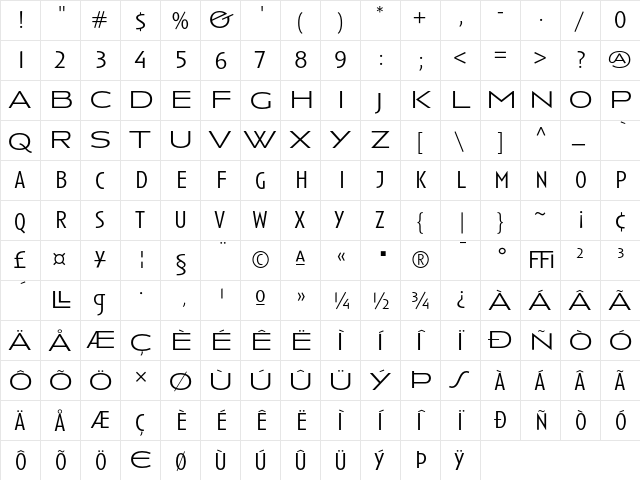
Anisette Light
Design Context for Anisette Typeface
Anisette is a composed and adaptable typeface that performs quietly and consistently across a wide range of design contexts. The delicate stroke weight brings airiness and refinement to layouts.
Pro Tip: Pair Anisette with a font of contrasting weight or personality to build a more expressive typographic hierarchy.